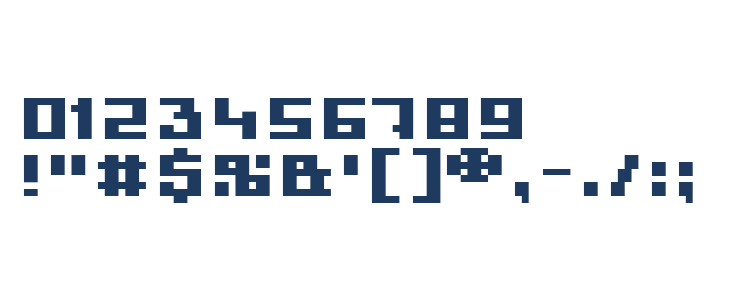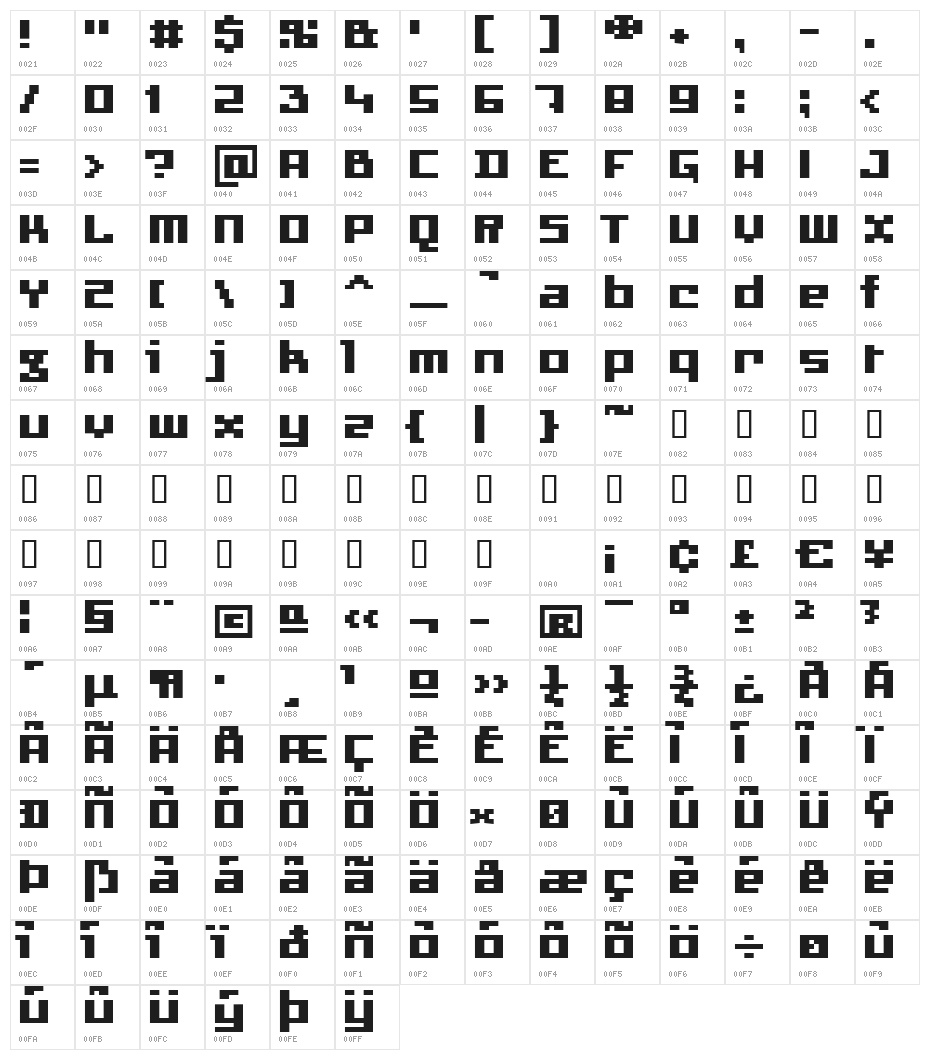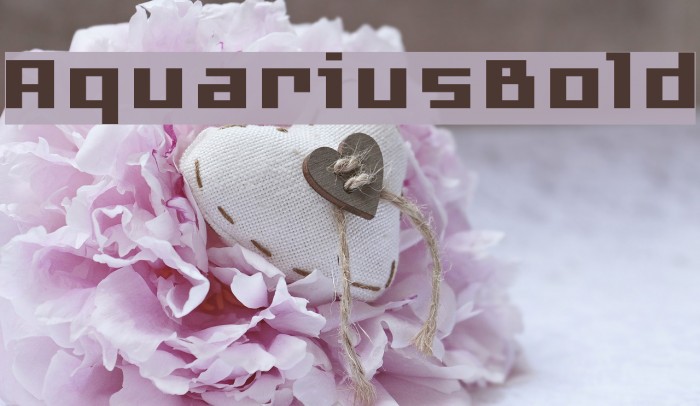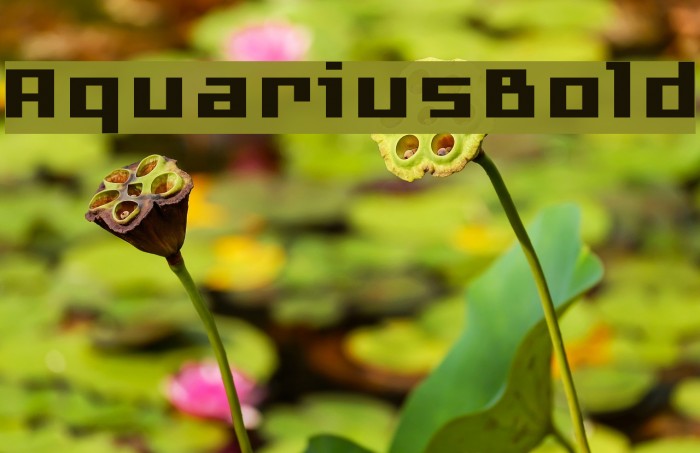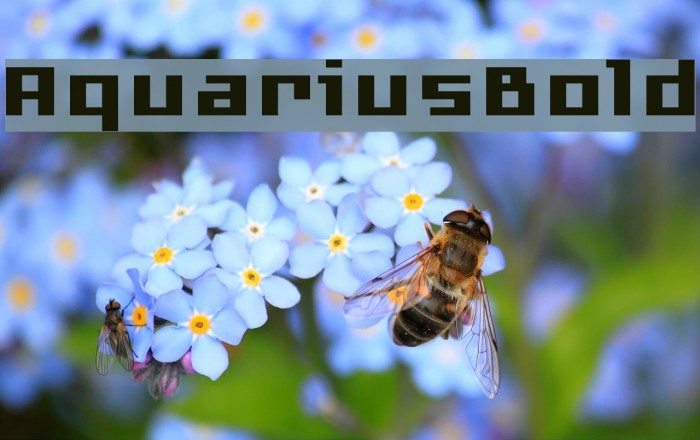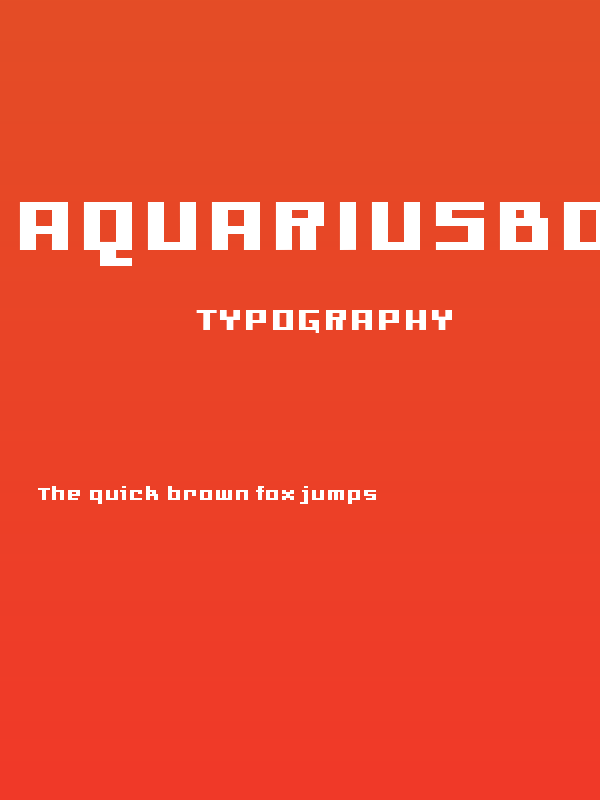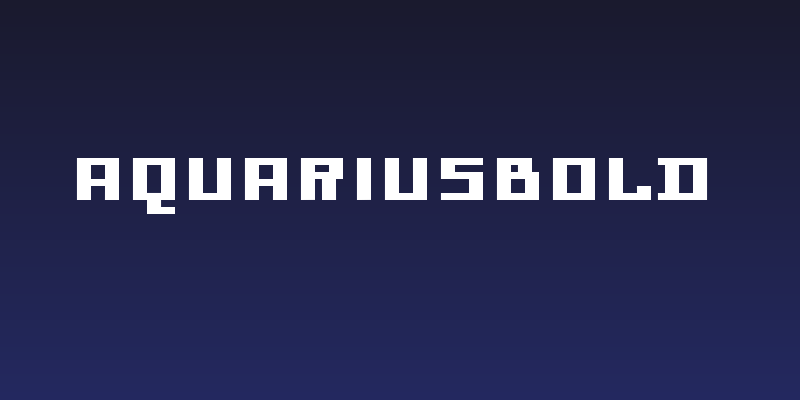
AquariusBold Font
AquariusBold Description
This font features a bold, pixelated design reminiscent of retro video games and digital displays. Each character is constructed with a blocky, geometric style, giving it a distinct, futuristic appearance. The uppercase and lowercase letters maintain a consistent height, contributing to a uniform look across text. Numbers and special characters follow the same pixelated pattern, ensuring a cohesive aesthetic. The font's strong, angular lines and absence of curves make it highly legible at various sizes, ideal for capturing attention in digital and print media.
Overall StyleModern, Retro
Use CaseHeadlines, Logos, Digital displays
Proposed ProjectsIdeal for video game design, digital art projects, retro-themed posters, and tech-related branding.